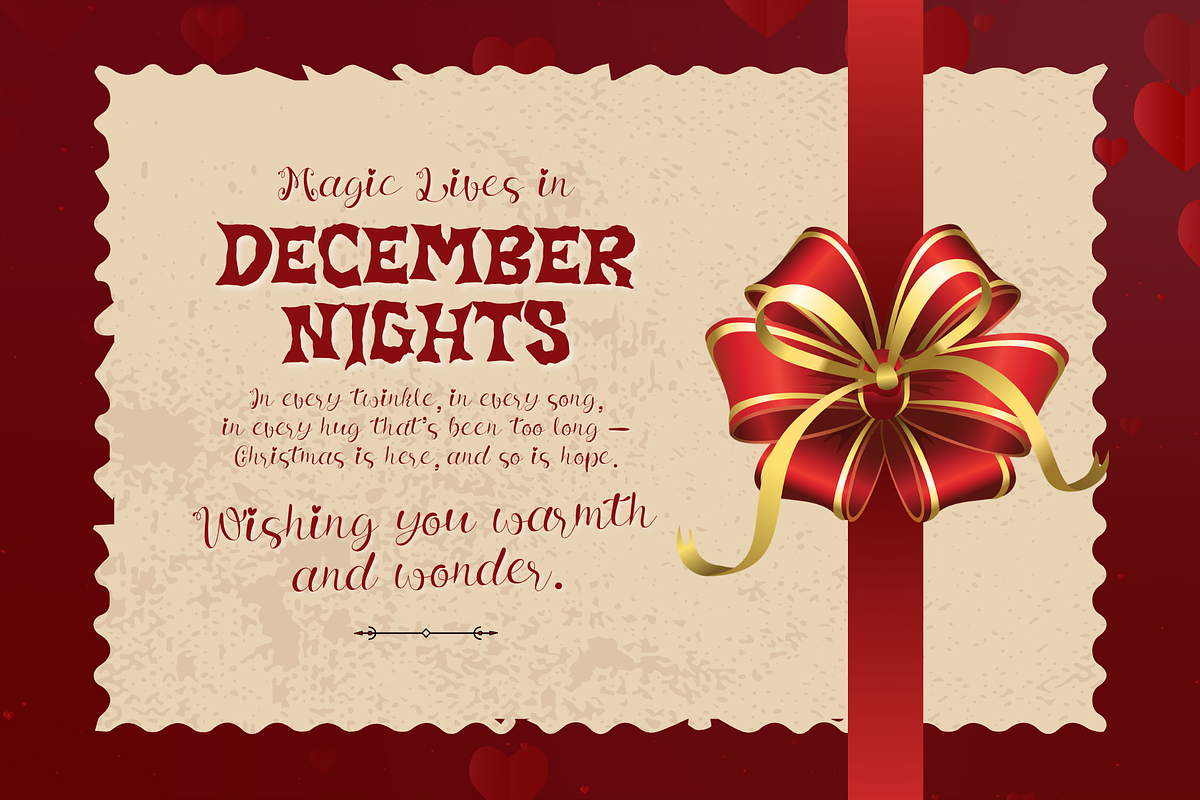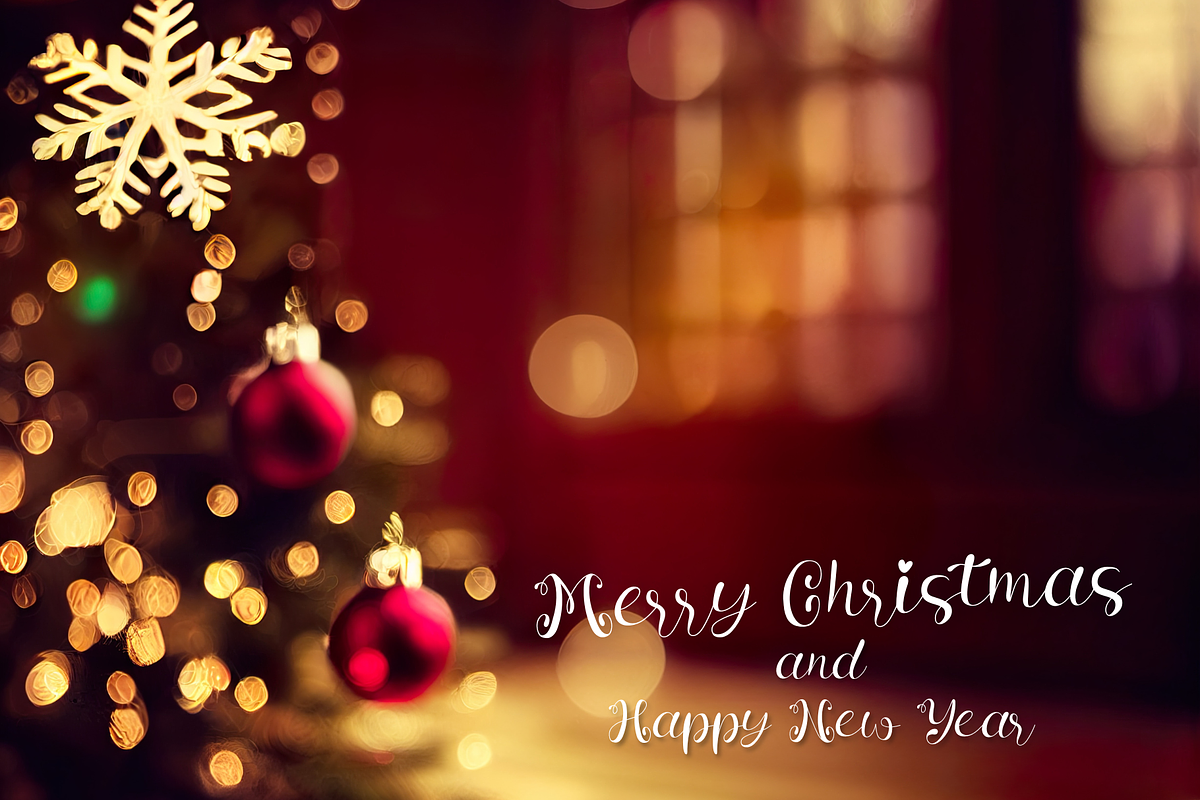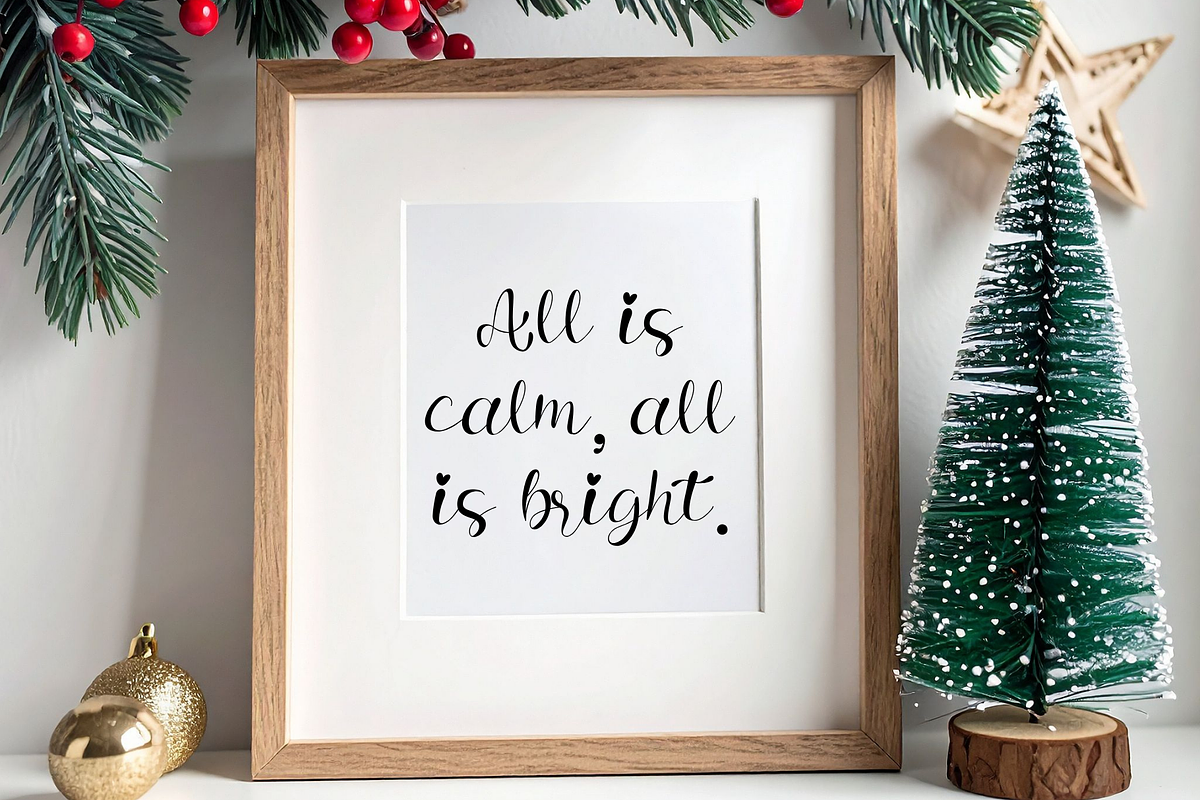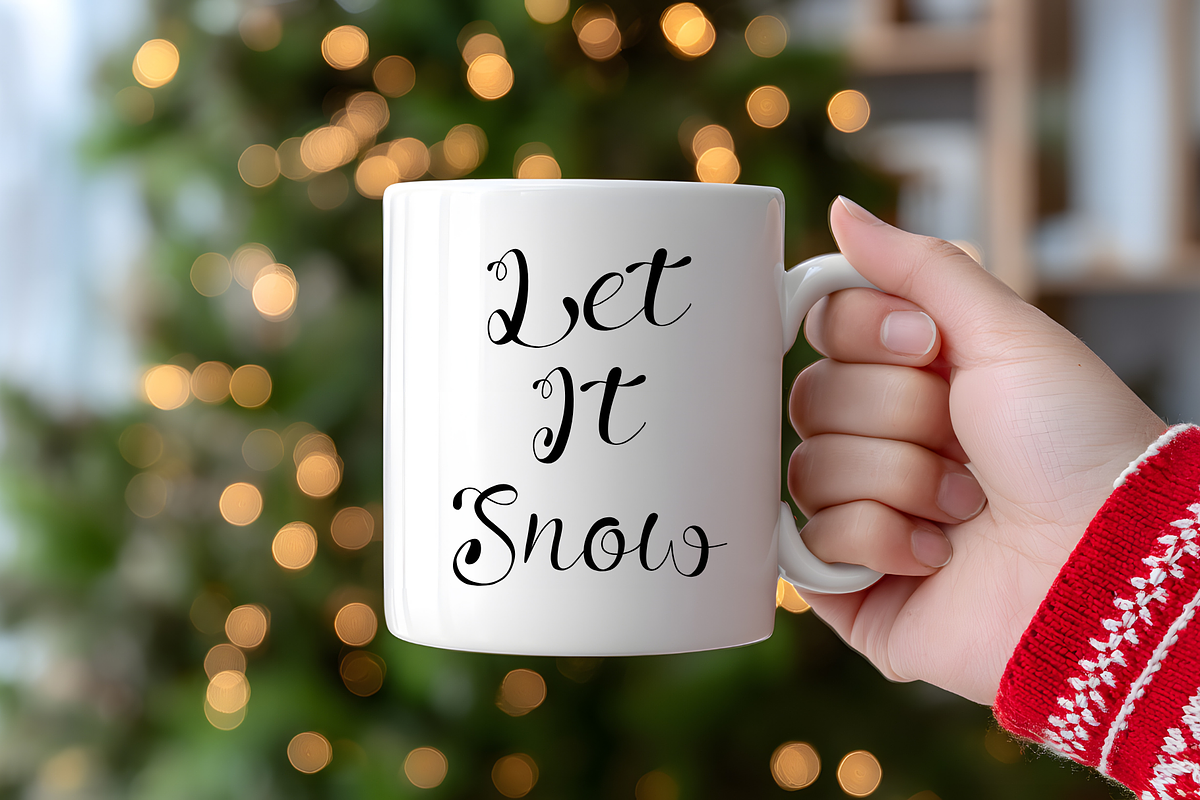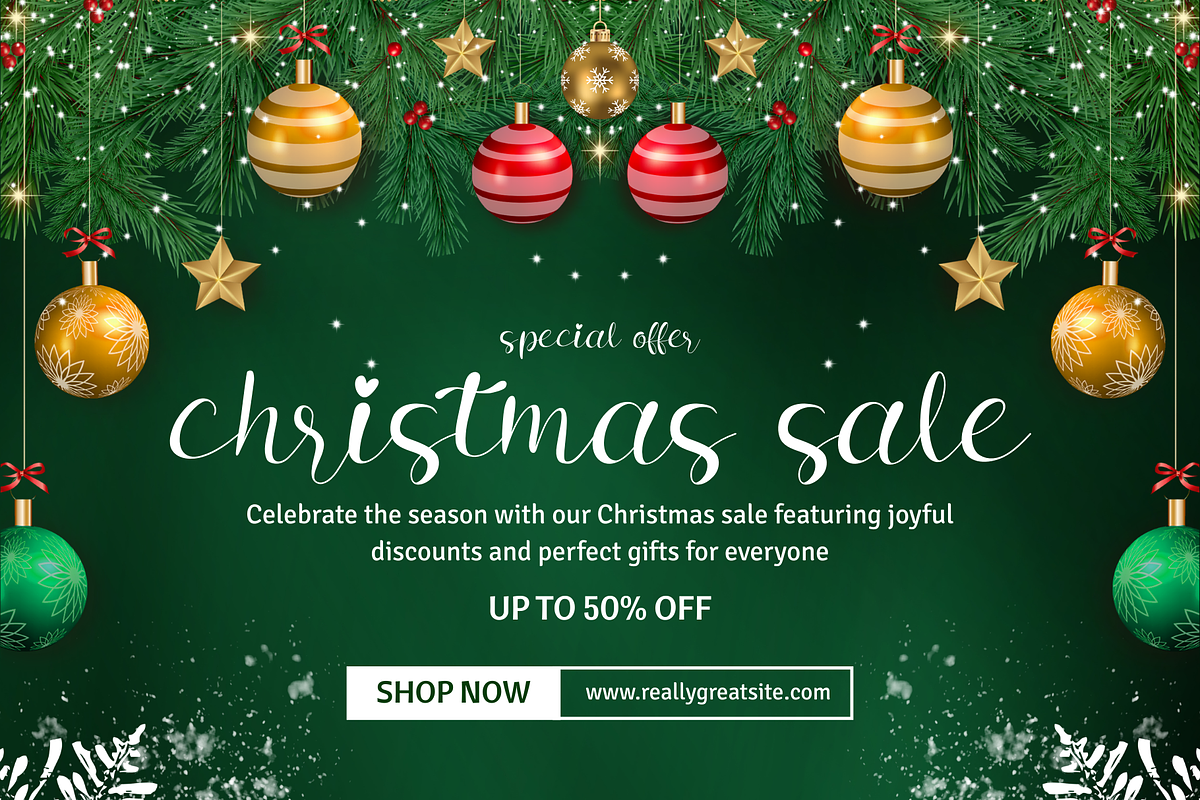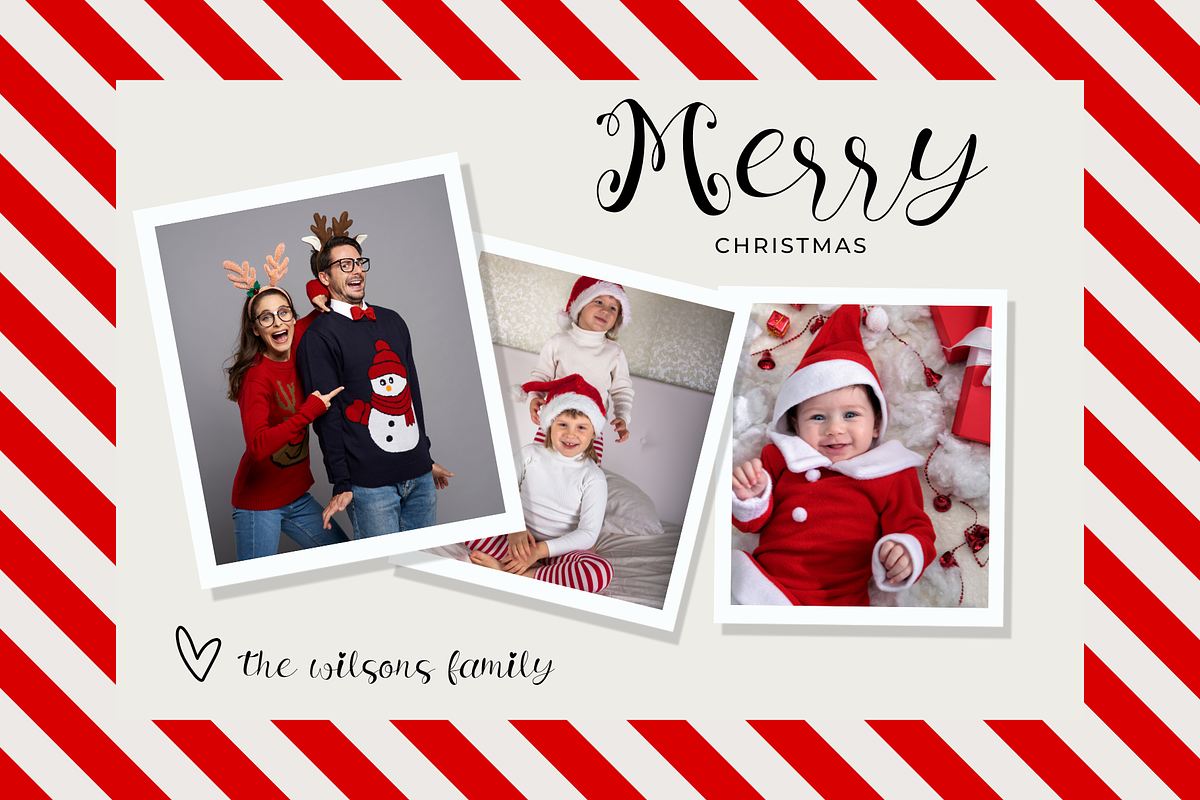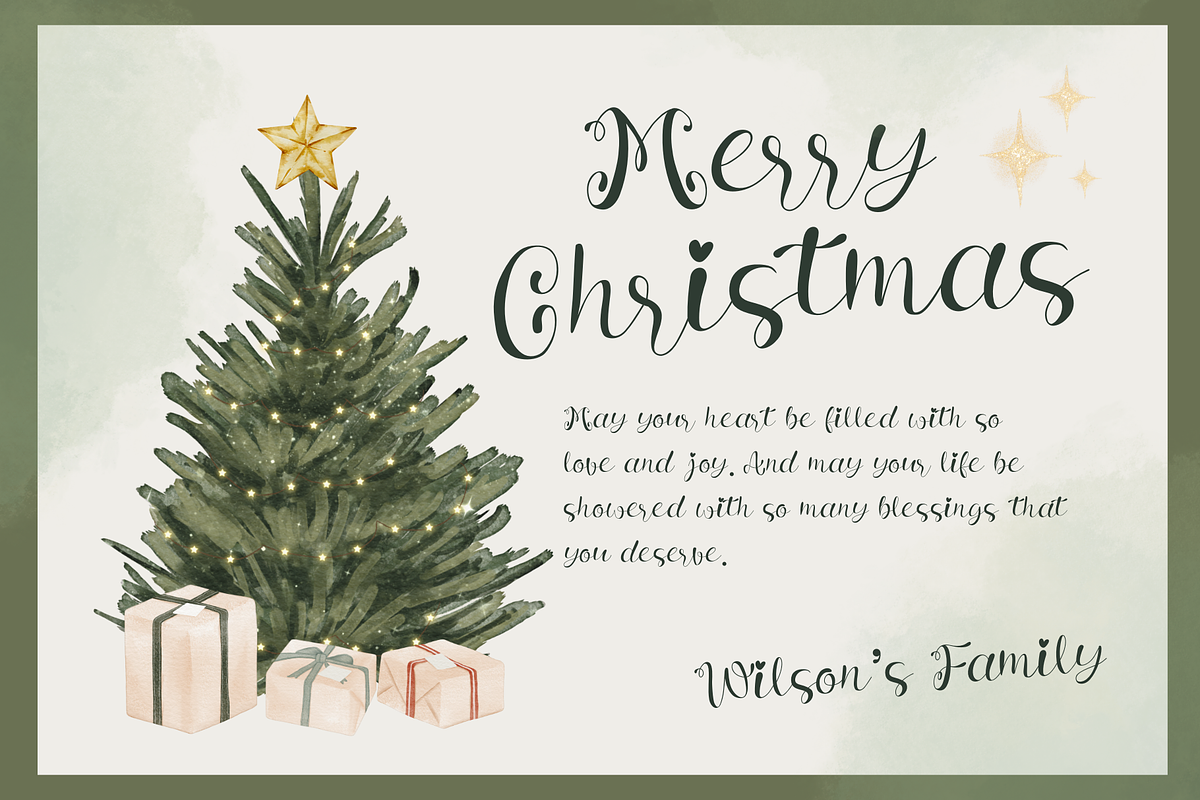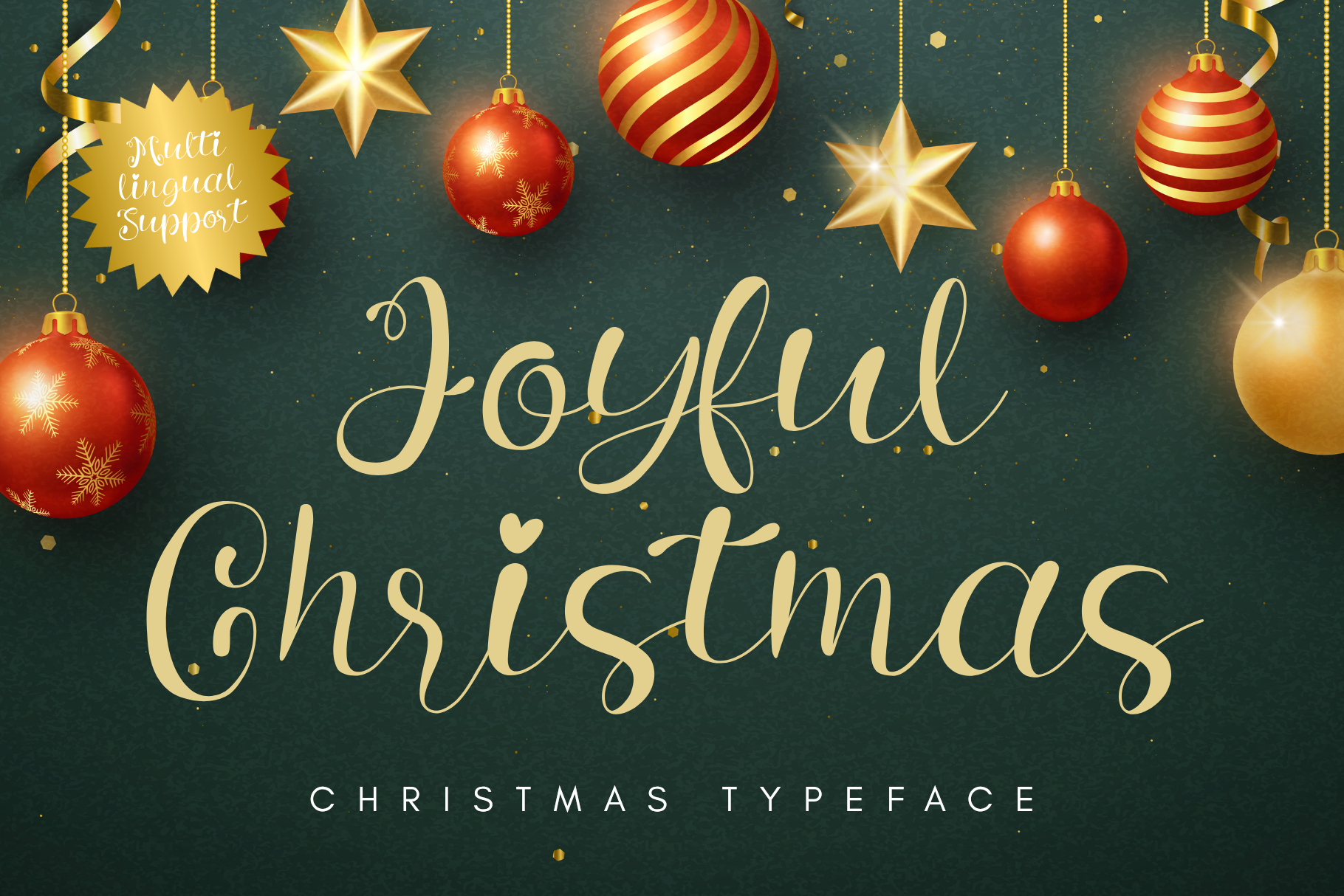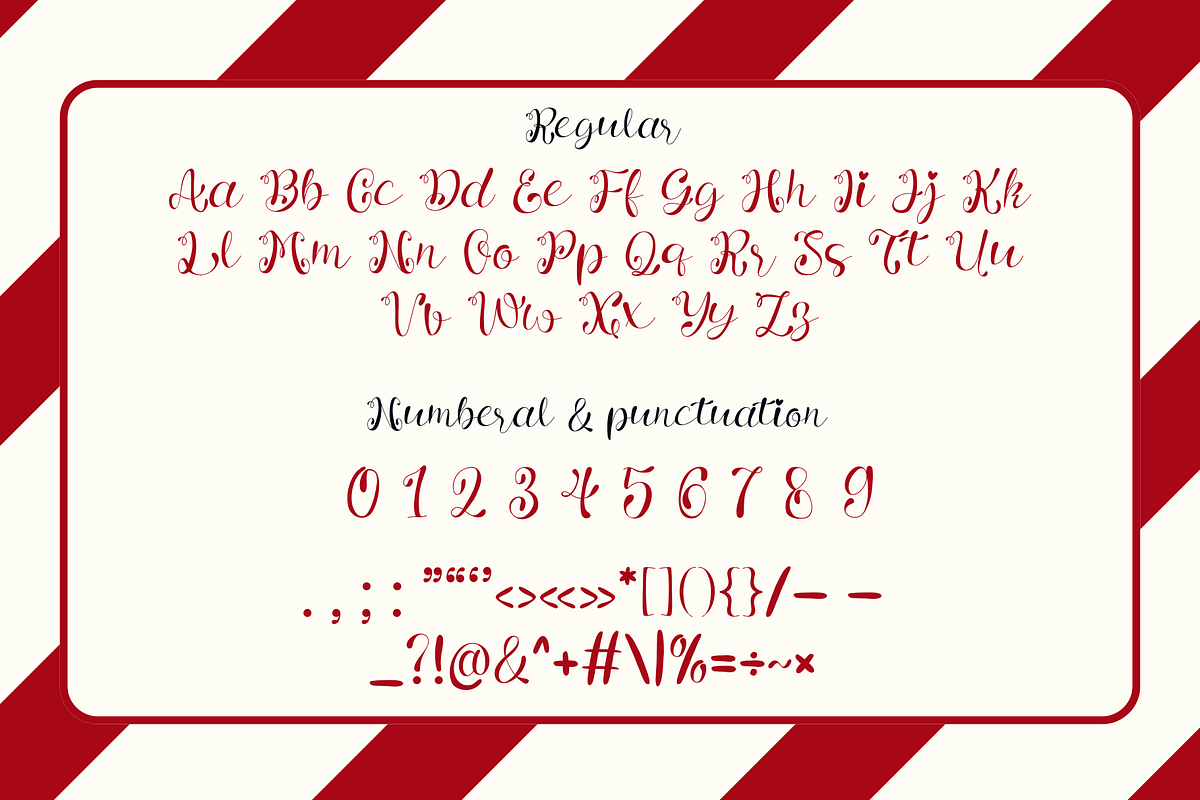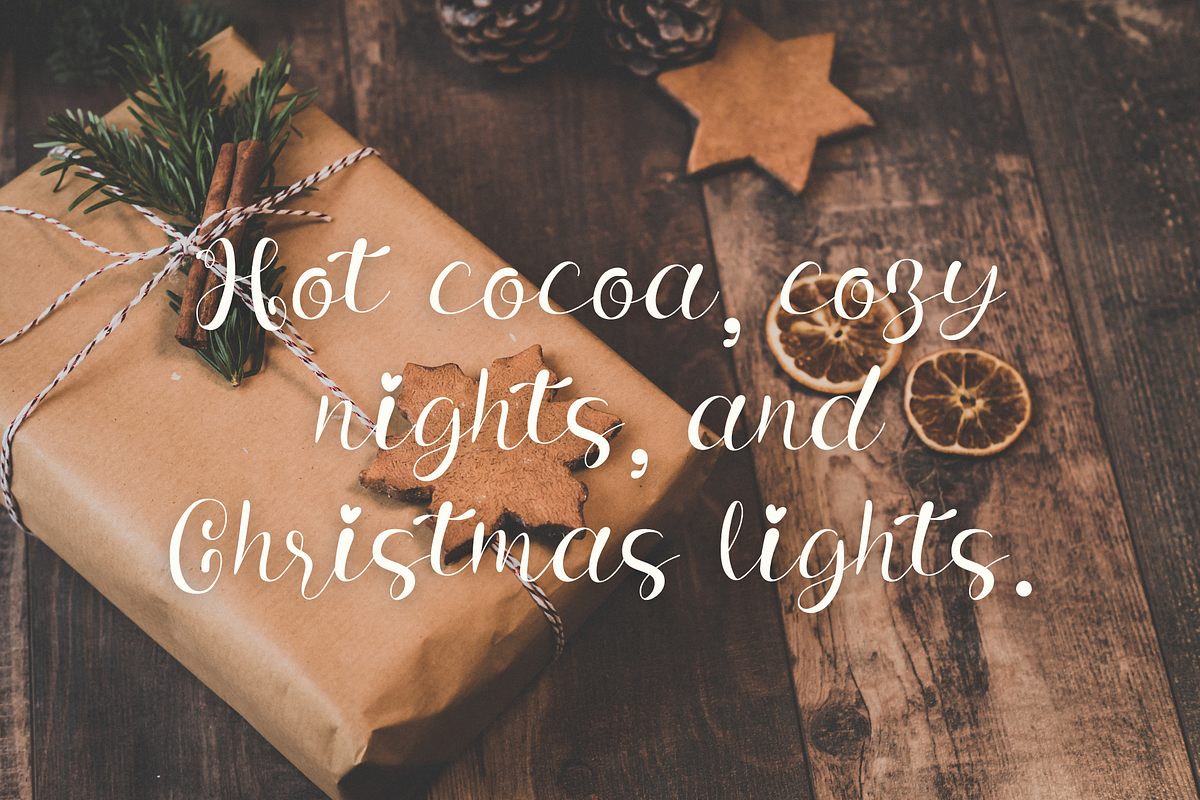
Joyful Christmas is Christmas font
Celebrate the season with Joyful Christmas, a charming handwritten script font designed to bring warmth, cheer, and festive elegance to your holiday projects. Its flowing strokes and playful curves capture the true spirit of Christmas, making every design feel magical and inviting.